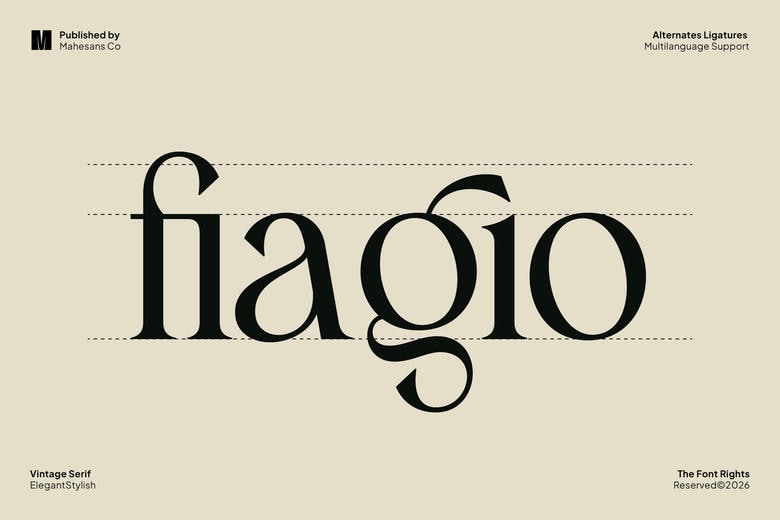
Fiagio Font
Fiagio is a serif typeface that is based on vintage inspiration and it is meant to add some grace and confident tone to your image. Constructed on graceful proportions, sleek curves and contrast strokes, this typeface combines classic editorial designs with modern branding requirements.
Fiagio is ideal when it comes to luxury branding, fashion labels, wedding invitations, cosmetic packages, magazines, logos, social media graphics, and upscale product packaging. Its multilingualism also means that your designs remain the same in the entire world.
You can use Fiagio to make your typography look polished, high-end, yet with enough personality to it in either a minimalist logo or a loud editorial design.
Fiagio Serif Font